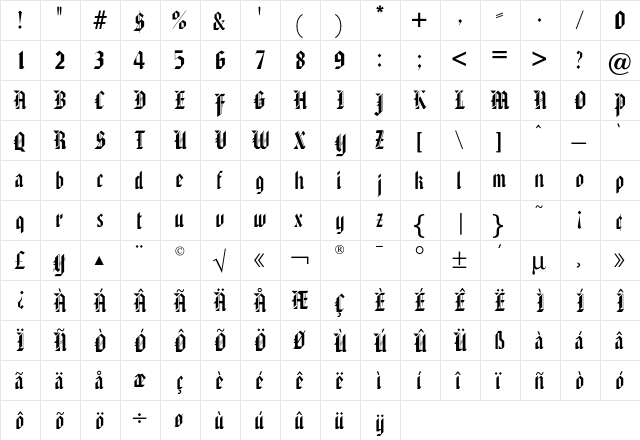
AmericanTextOpti Regular
Design Context for AmericanTextOpti Typeface
AmericanTextOpti takes a measured approach to typography — its balanced proportions and neutral character make it a reliable workhorse for both digital and print work.